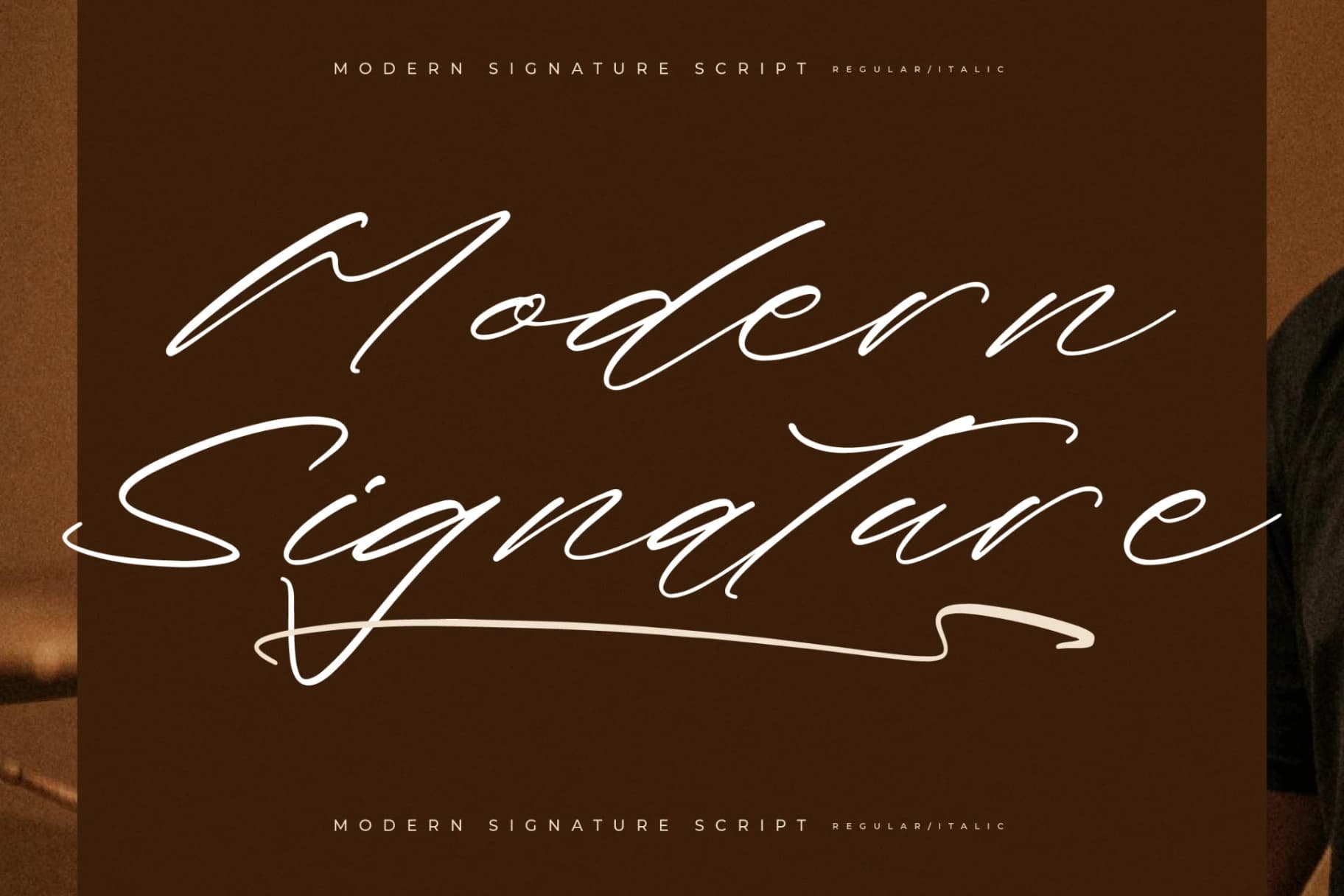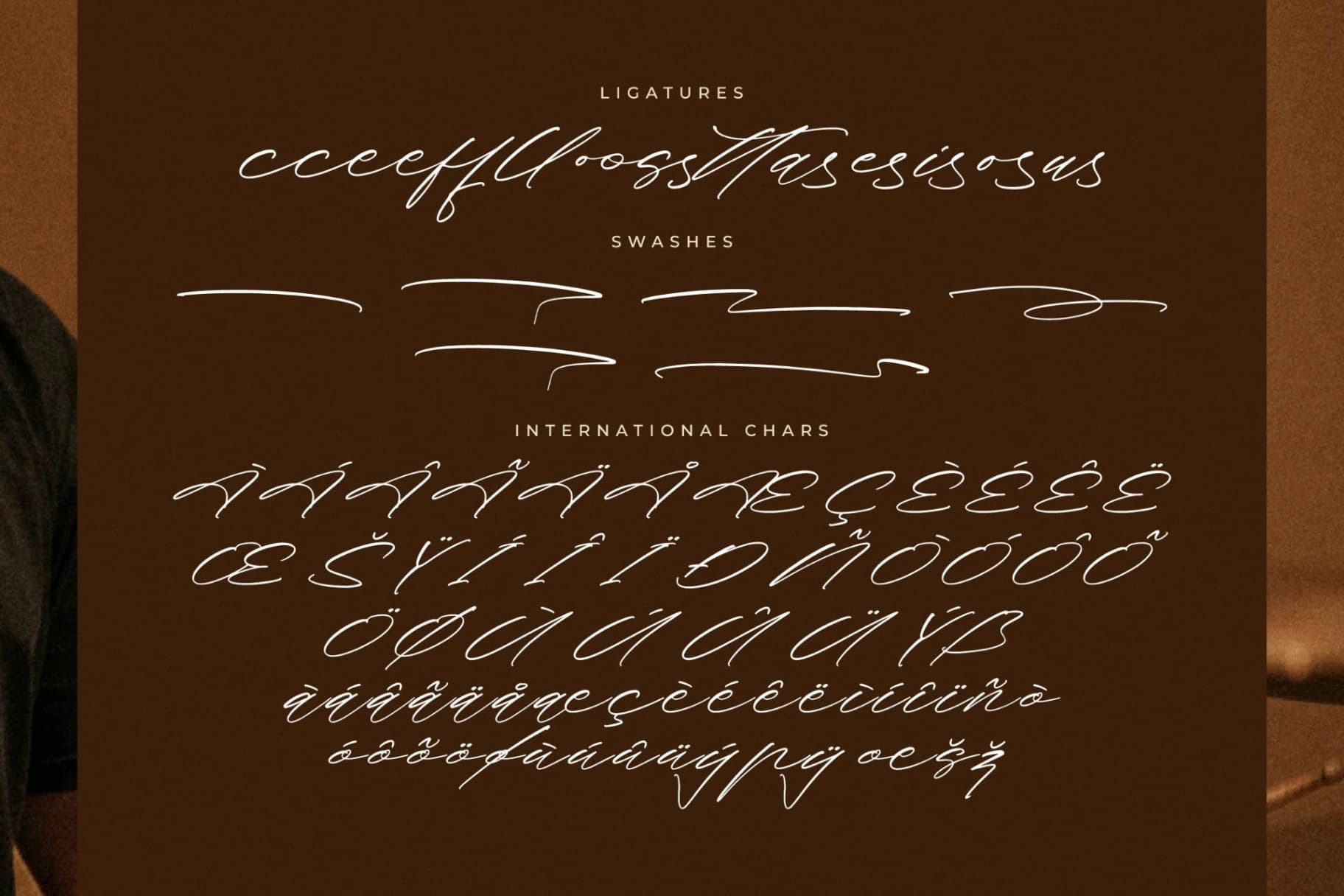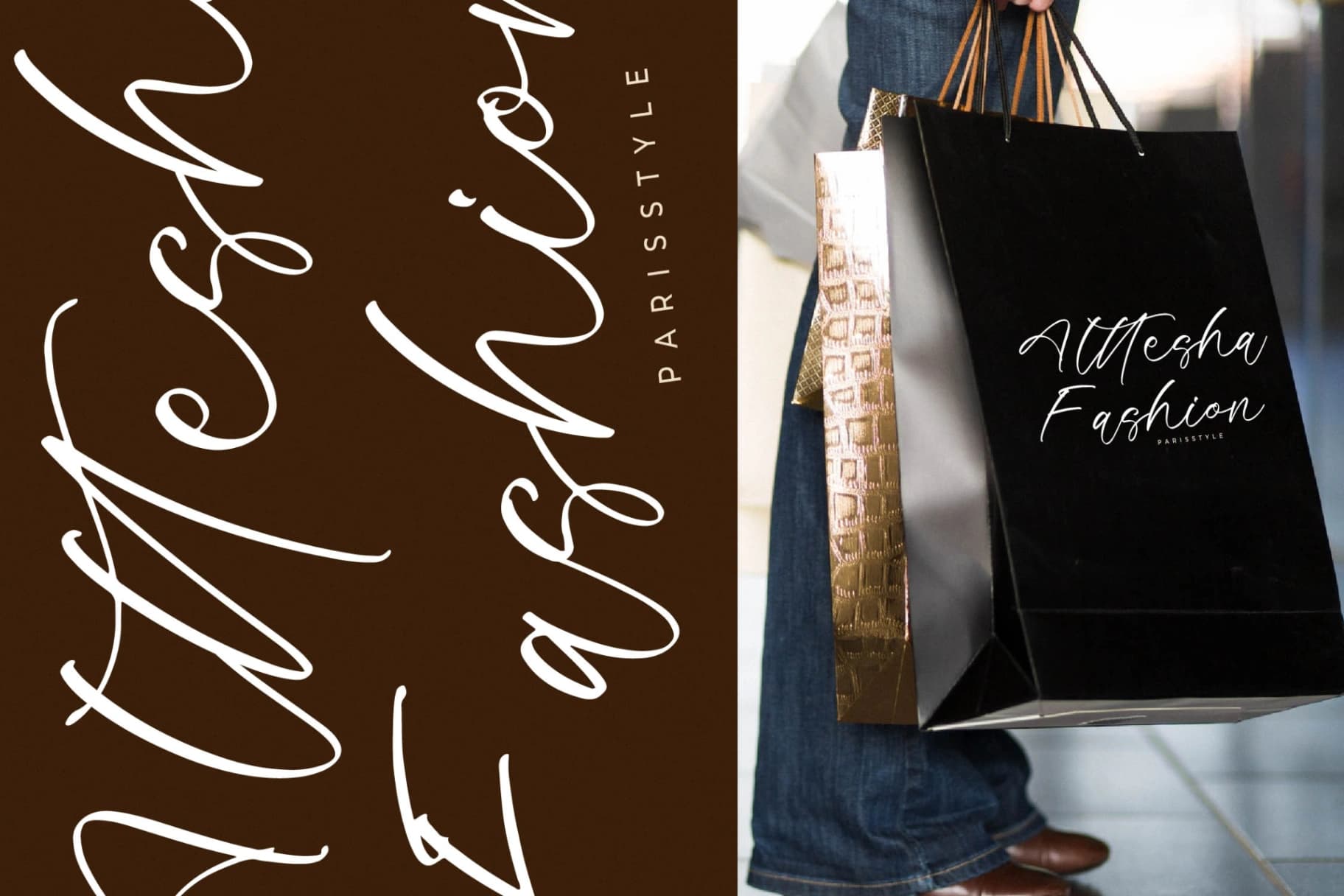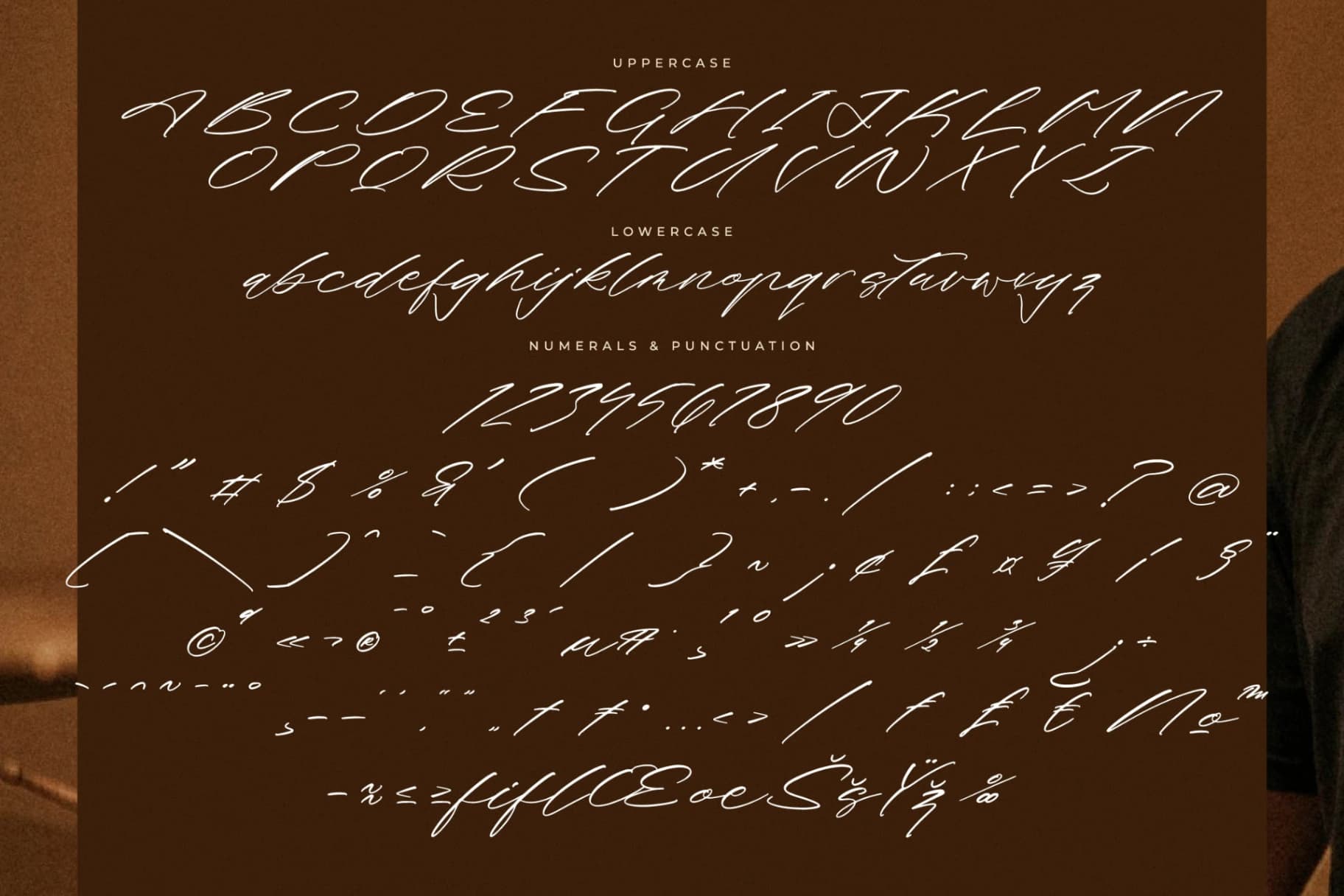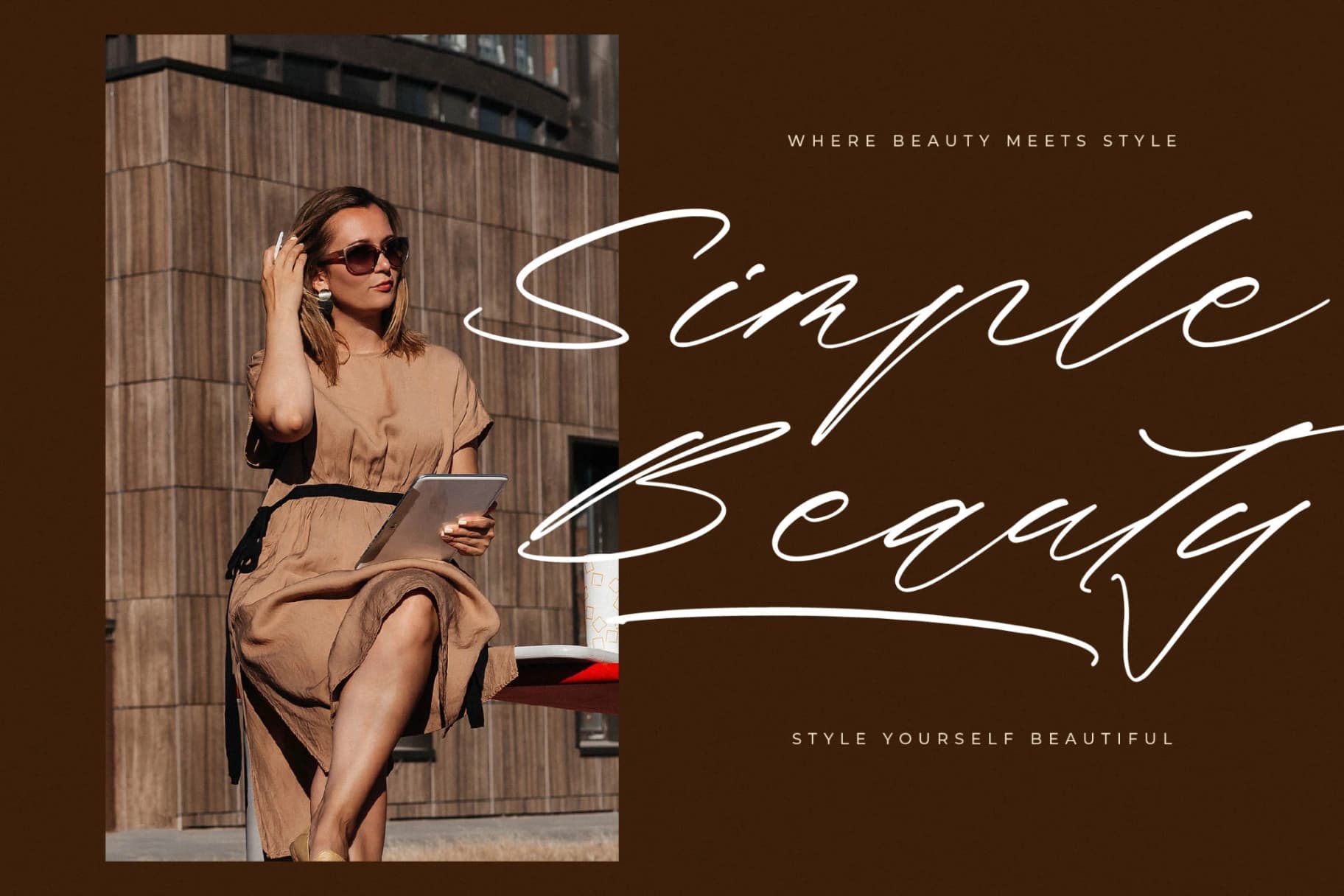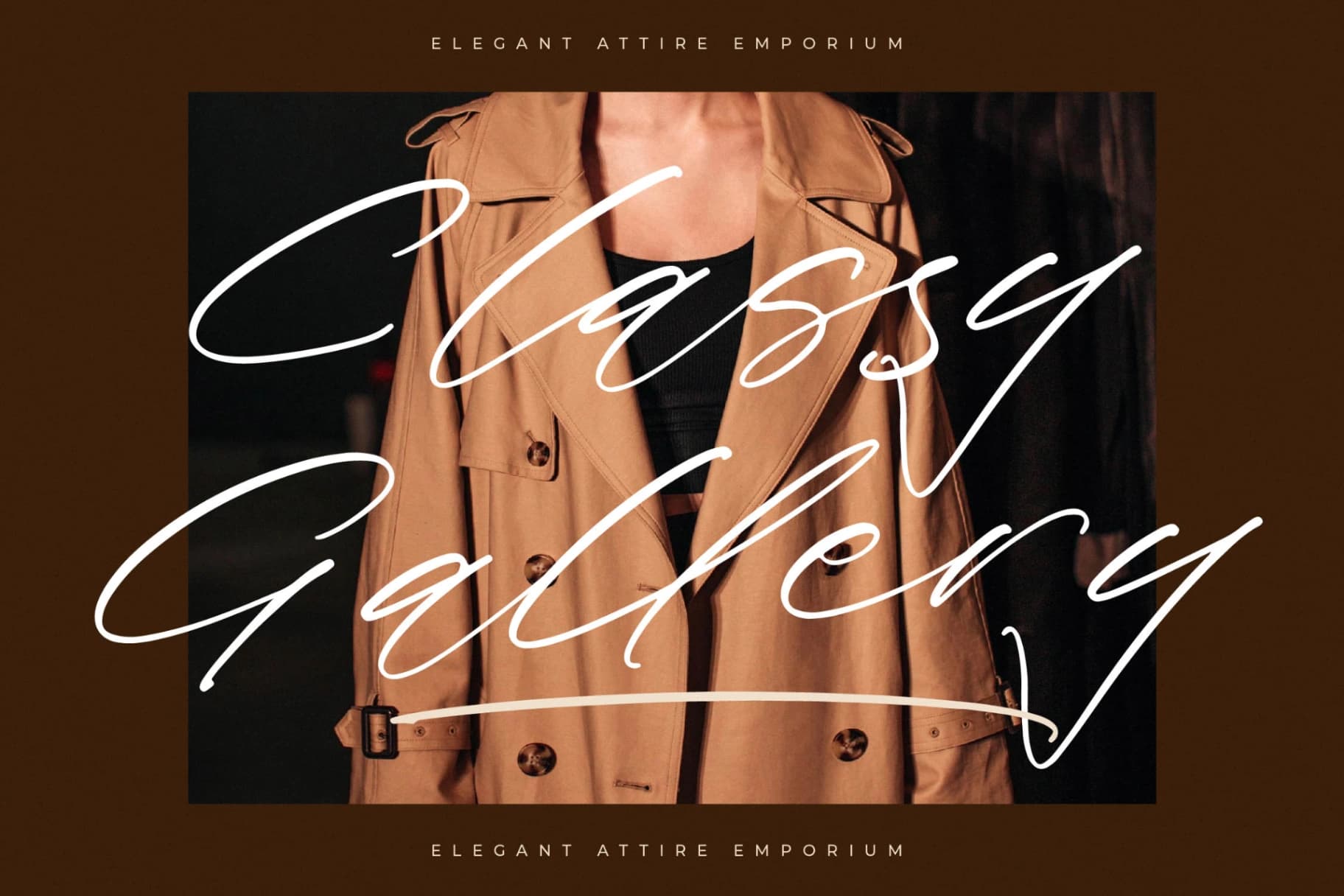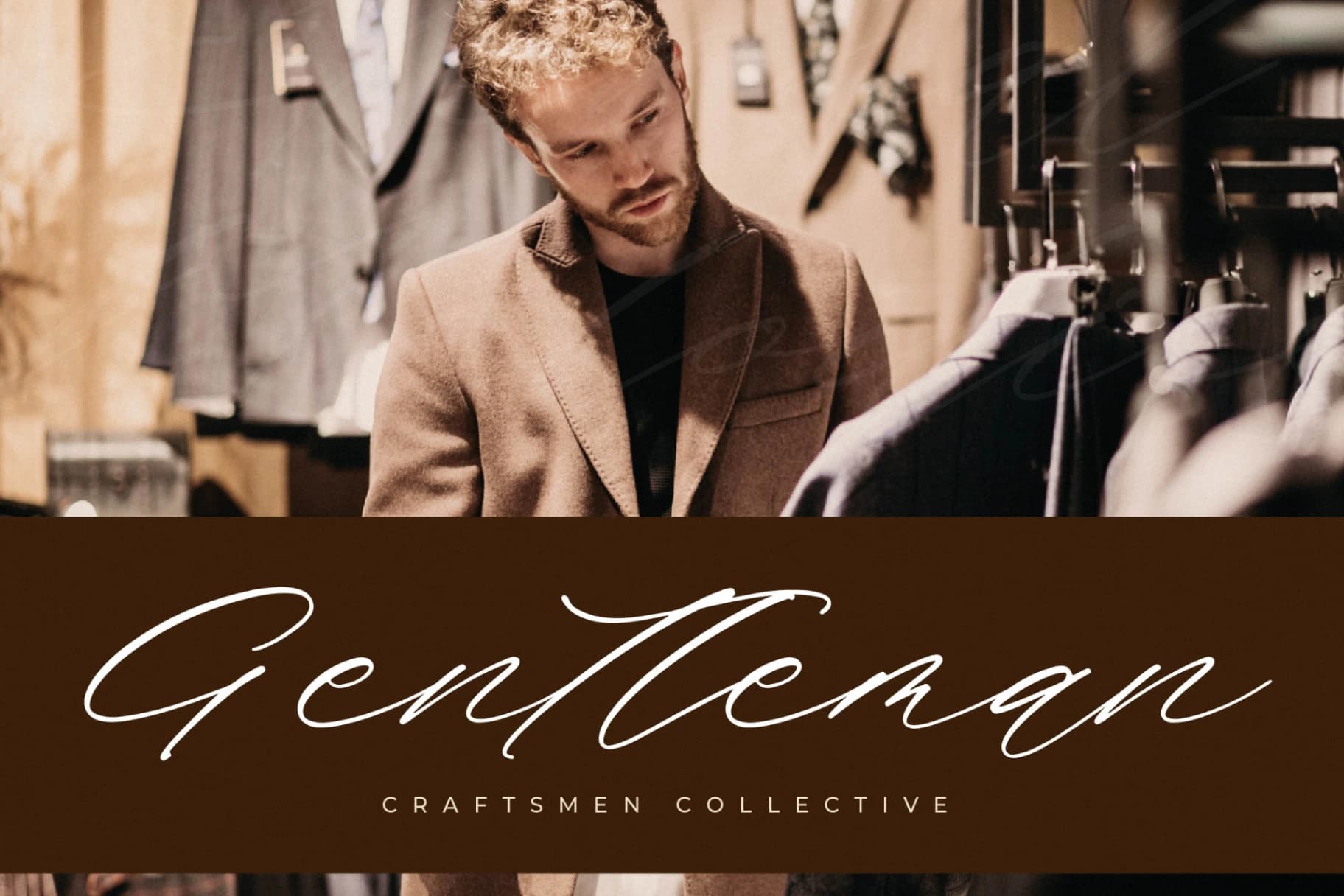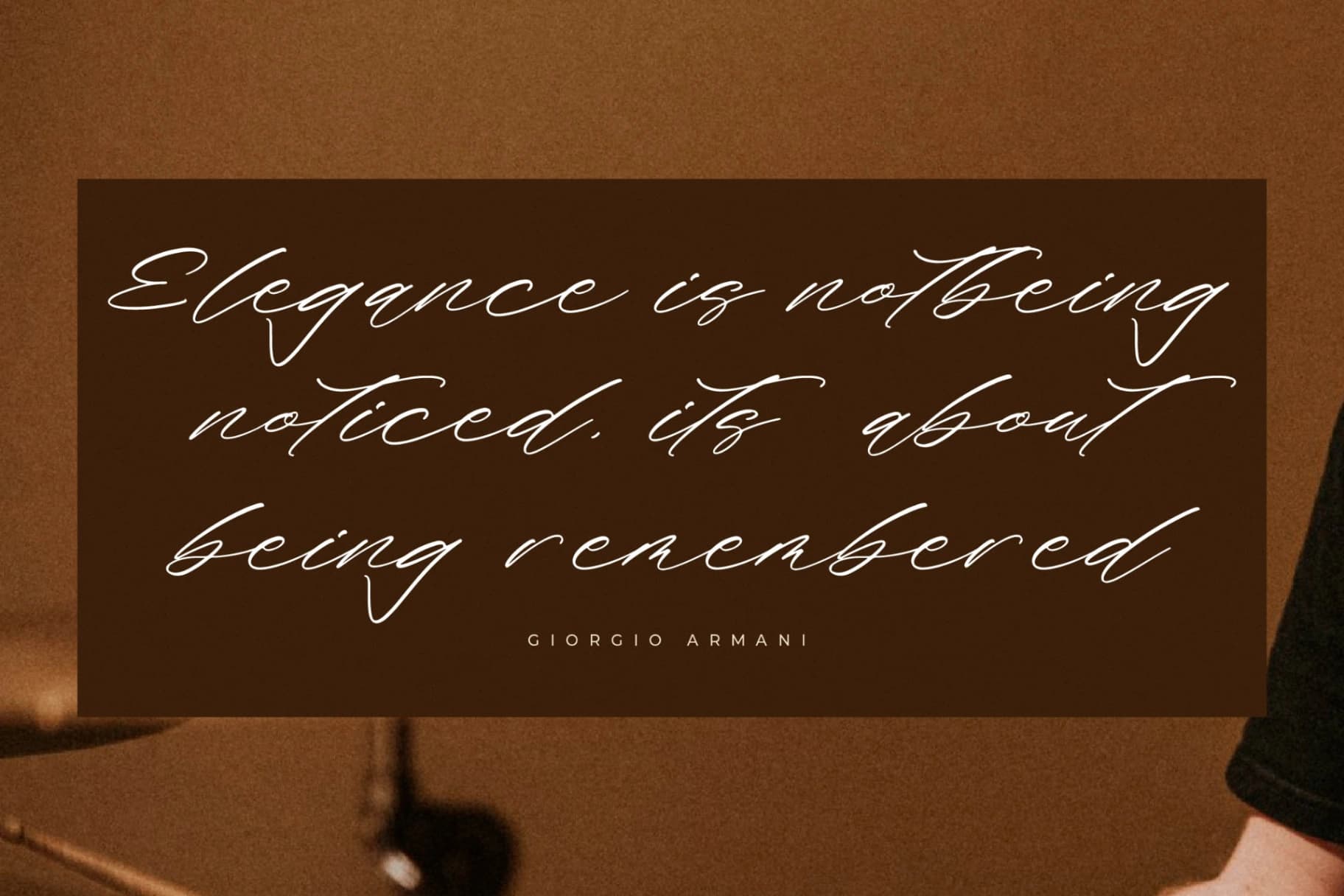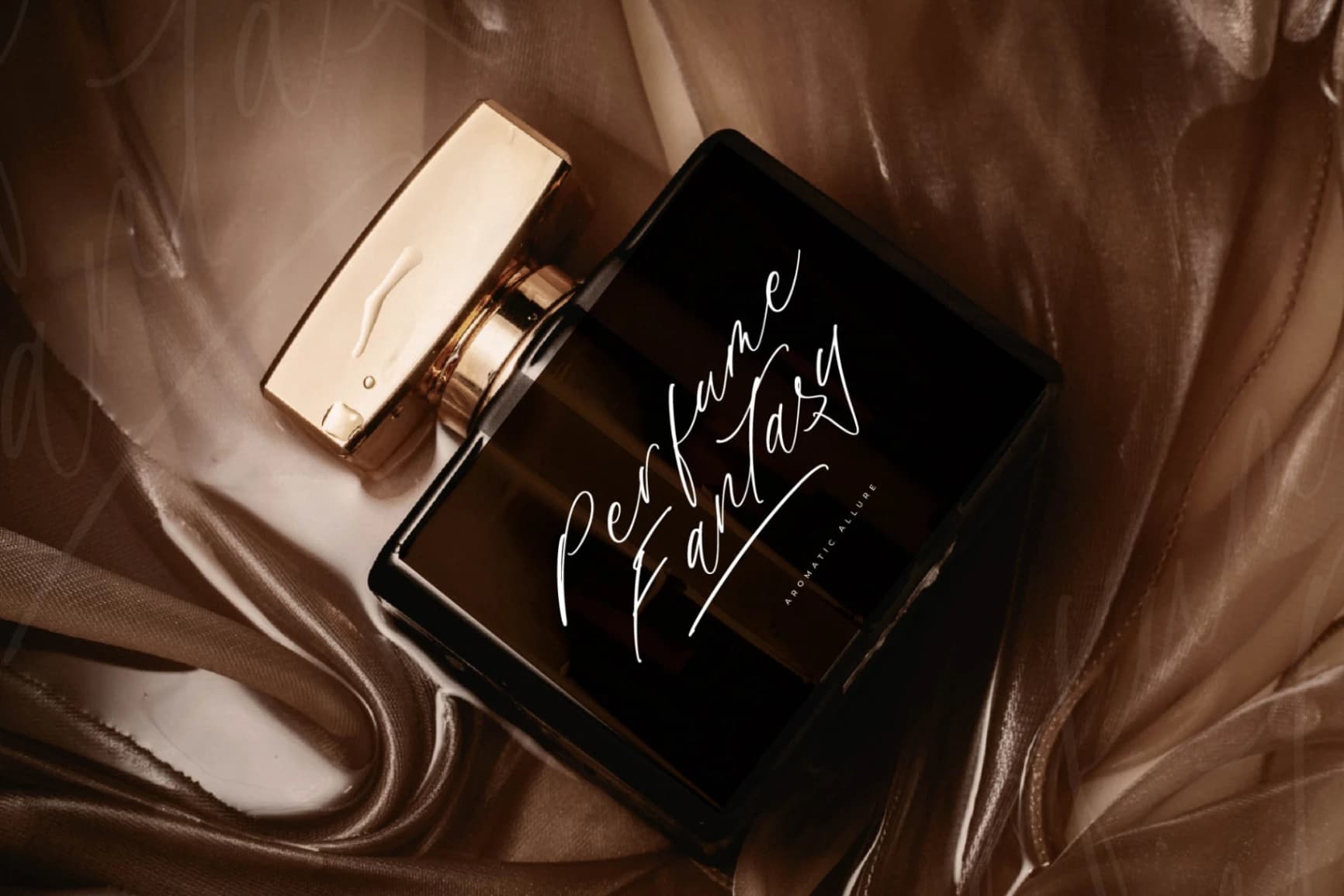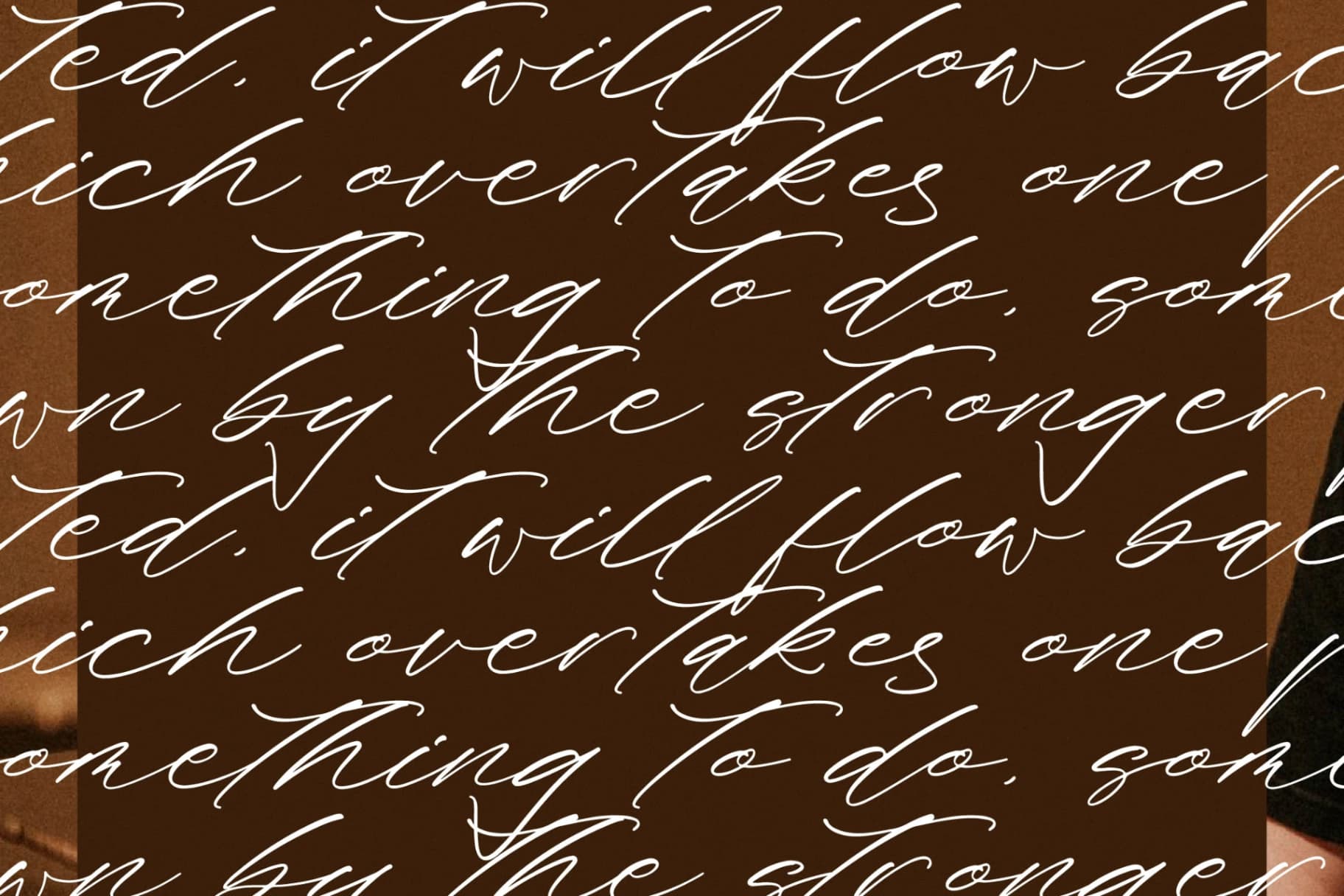
Fanttasic Melody – Modern Signature Script
Unleash the power of modern elegance with Fanttasic Melody – Modern Signature Script, a typeface designed to infuse your projects with unparalleled authentic signature charm. This captivating script captures the spontaneous beauty of natural handwriting, offering a fluid and expressive aesthetic that immediately conveys a sense of personal touch and sophistication. Its graceful curves and effortless flow make it an instant classic for any design demanding a genuinely handcrafted feel.
Experience meticulous design that blends artistry with functionality. Fanttasic Melody – Modern Signature Script boasts an exquisite balance between delicate strokes and confident lines, ensuring exceptional readability without sacrificing its distinctive flair. With its extensive multilingual support, Fanttasic Melody – Modern Signature Script adapts seamlessly across global markets, making it incredibly versatile for international projects and ensuring your message resonates worldwide.
This font is the quintessential choice for elevating diverse design endeavors. Fanttasic Melody – Modern Signature Script is perfect for luxury branding, creating memorable wedding invitations, striking product packaging, and crafting high-end marketing materials. Its expressive nature also shines in editorial layouts, social media graphics, and any application requiring a bold yet refined statement that truly stands out.
Transform your visual communication with the sophisticated appeal of Fanttasic Melody – Modern Signature Script. It’s more than just a font; it’s an asset that promises to add a layer of unforgettable charm and professional distinction to every creation. Invest in this impactful script to give your brand a voice that is both modern and timelessly elegant.